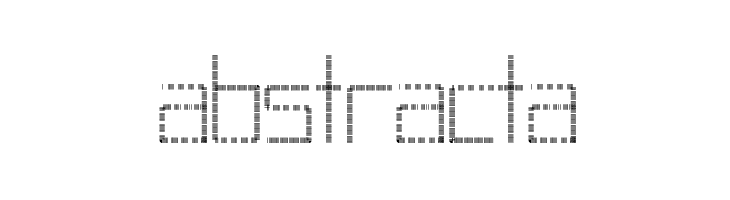
Abstract Font
Abstract Description
This font features a unique, abstract design with a pixelated, grid-like structure. Each character is composed of small squares, giving it a digital, futuristic appearance. The uppercase and lowercase letters maintain a consistent height, contributing to a uniform look. The numbers and special characters follow the same pixelated style, ensuring cohesion across all elements. This font's geometric nature makes it stand out, offering a modern and tech-savvy vibe. The characters are evenly spaced, providing a balanced and readable text flow. The overall style is distinctly digital, making it suitable for projects that require a contemporary and innovative touch.
Frogii`s Fonts
| Use Case | Logos, Headlines |
| Proposed Projects | Ideal for digital art, tech-themed posters, video game graphics, and modern branding. |